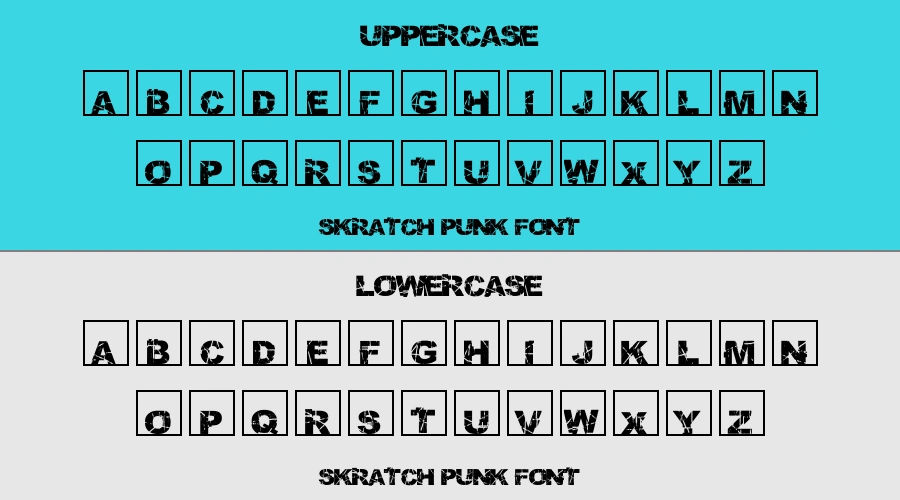
About Skratch Punk Font
Skratch Punk Font embodies typographic excellence through its masterful combination of calculated proportions and visual comfort. Created for mobile applications, this typeface delivers exceptional accuracy and creative potential across all applications. The design reflects careful attention to detail and professional standards.
Advanced capabilities include distinctive elegant proportions and versatile word-end alternates, giving designers creative control. When used in retail environments, Skratch Punk Font exhibits remarkable special effects. The harmonious balance between apex design and lifestyle alignment sets this typeface apart.